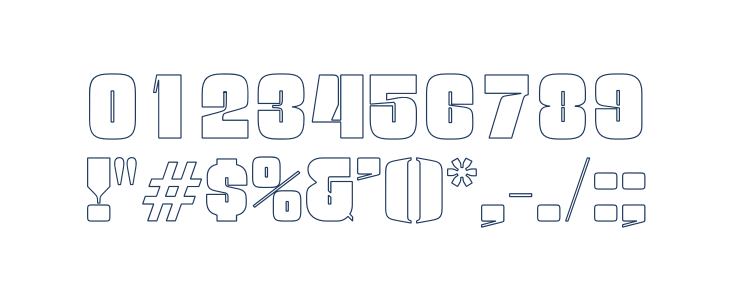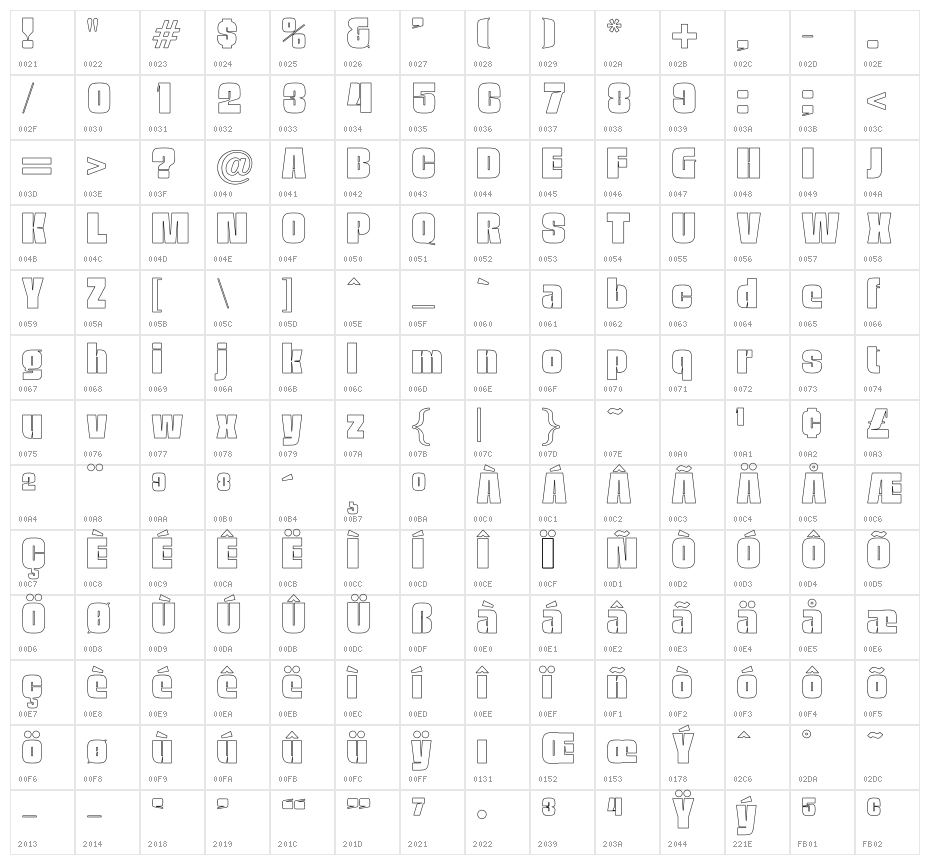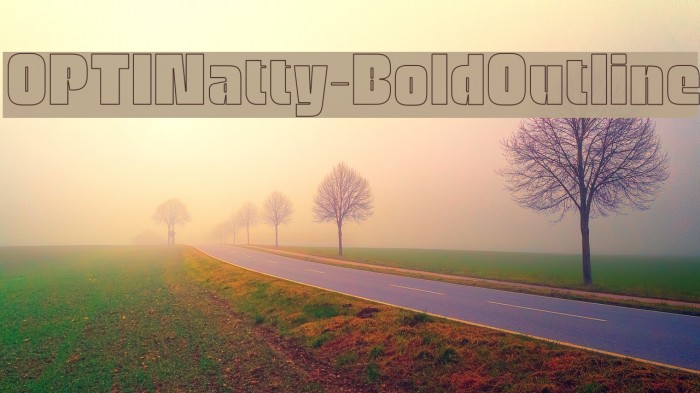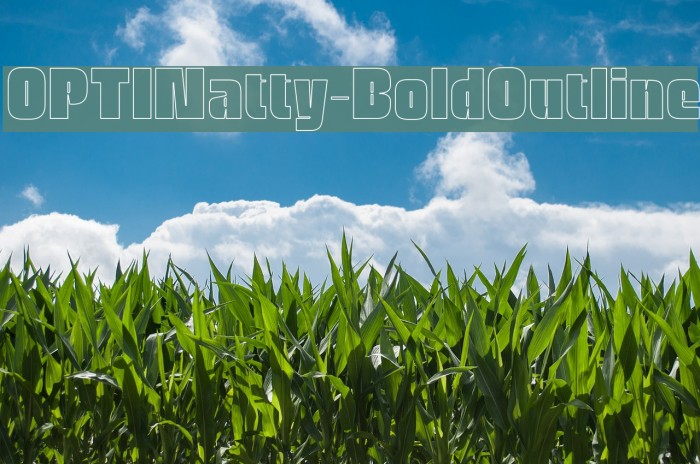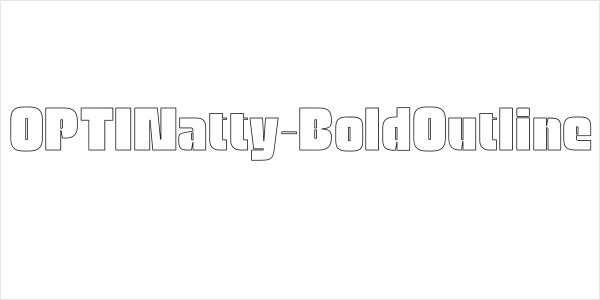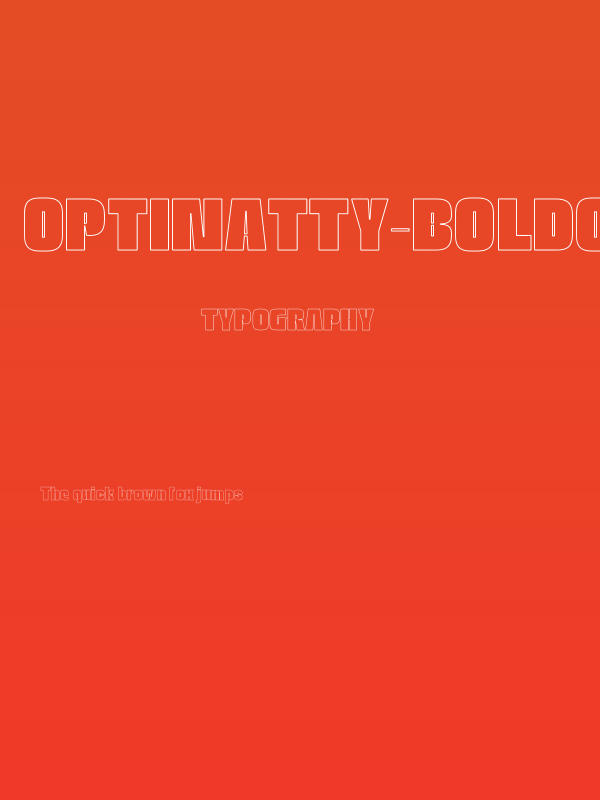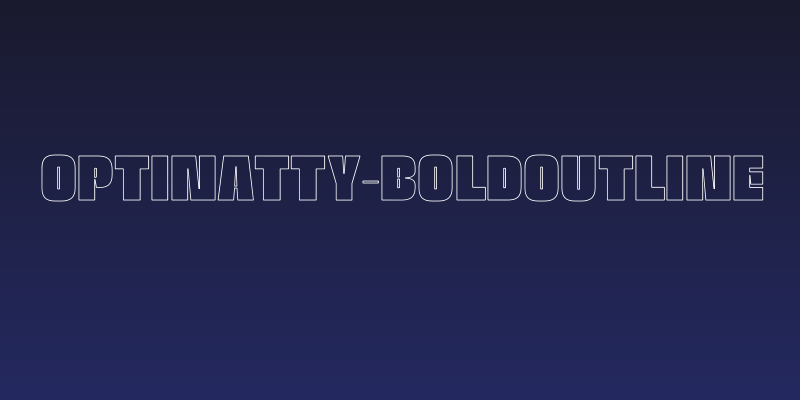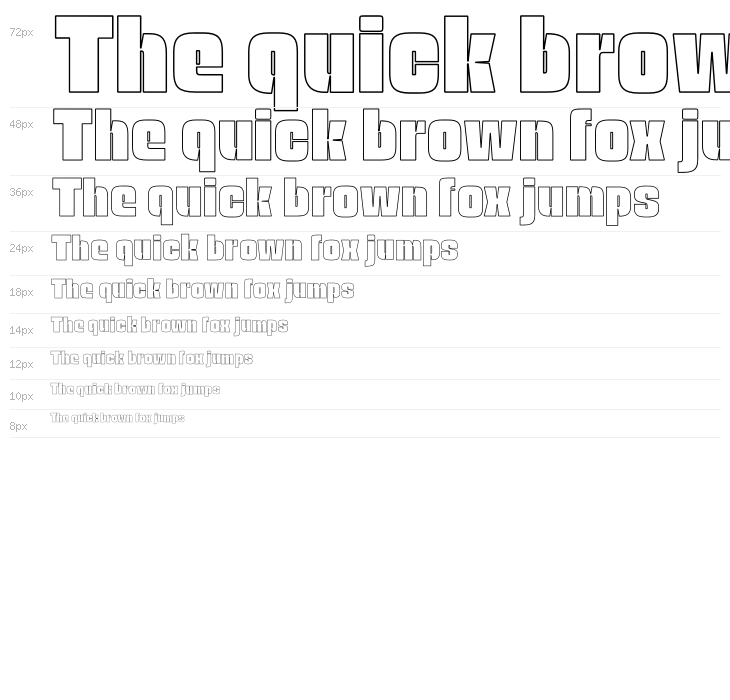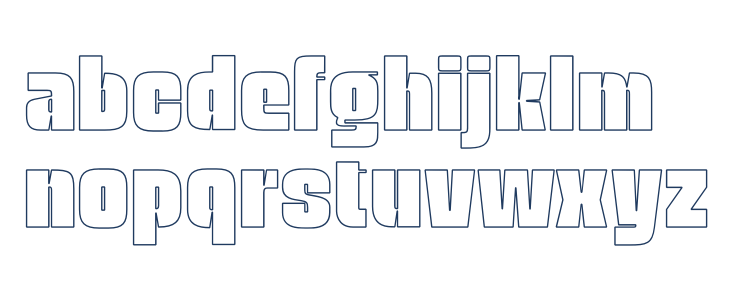
OPTINatty-BoldOutline Font
OPTINatty-BoldOutline Description
This font features a bold, outlined style that gives it a striking and impactful appearance. The characters are uppercase and lowercase letters, numbers, and a variety of special symbols. Each letter is designed with a thick, uniform outline that enhances its visibility and makes it stand out. The geometric structure of the characters provides a modern and clean look, while the bold outlines add a touch of playfulness and creativity. This font is ideal for projects that require a strong visual presence and can be used effectively in both digital and print media.
| Proposed Projects | Ideal for posters, headlines, logos, and branding materials where a strong visual impact is needed. |